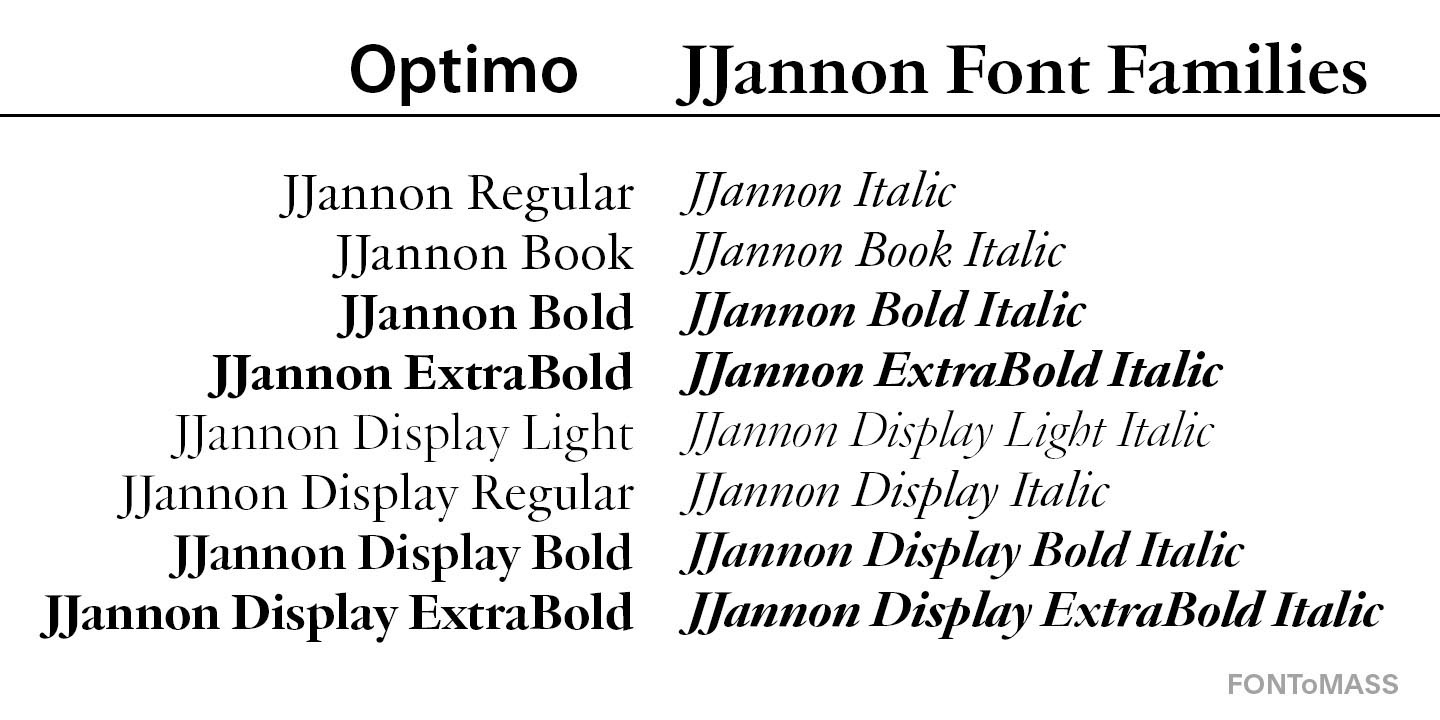
JJannon Font
JJannon Font is perfect for scholarly publications, academic institutions, classical literature designs, historical research materials, prestigious university communications, traditional publishing houses, elegant book typography, refined editorial layouts, cultural heritage projects, and distinguished intellectual branding.
JJannon Font creates excitement because it embodies the timeless elegance and scholarly sophistication of classical typography with its refined letterforms and academically-inspired character design. The font's precise proportions and intellectual aesthetic instantly convey scholarly authority and traditional excellence, making any brand appear learned and authentically academic. Its carefully crafted classical details and scholarly character create an immediate sense of intellectual distinction that captivates audiences seeking educational experiences, academic quality, and products that celebrate the enduring beauty of traditional scholarship and intellectual pursuit.
The JJannon Font family includes multiple weights and styles: Regular, Bold, Light, Medium, Italic, Condensed, Extended, Classical, Scholarly, and Academic versions. Each variant maintains the font's signature intellectual character while offering different levels of scholarly refinement and academic styling suitable for various educational and cultural applications.